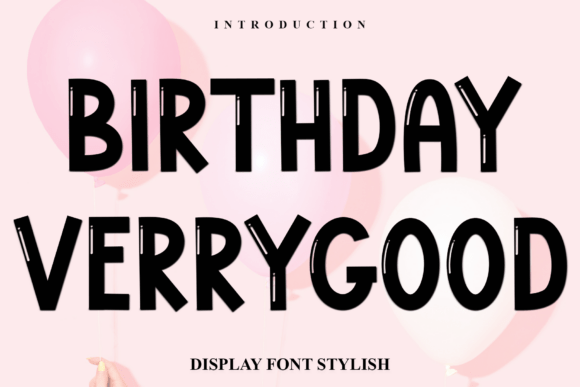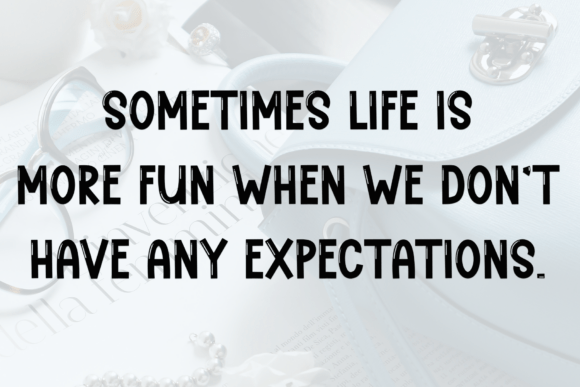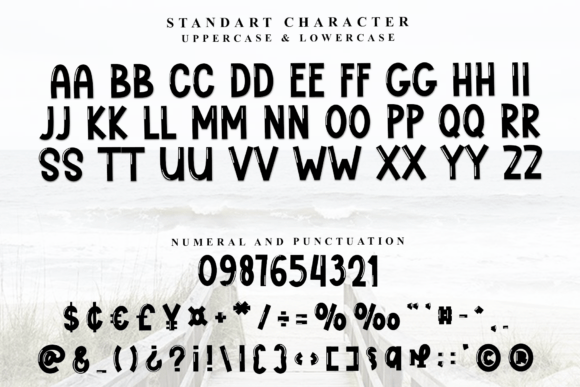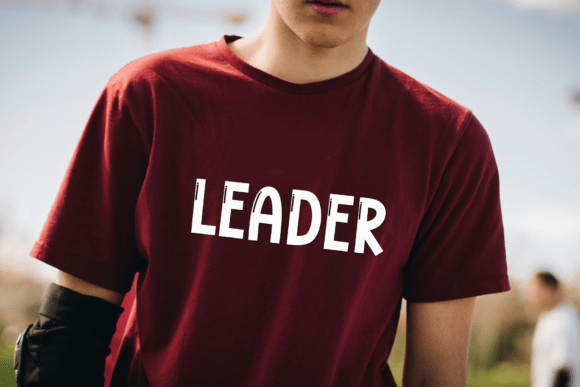
Birthday Verrygood Font
Birthday Verrygood is a sweet and friendly display font. Its natural and unique style makes it incredibly fitting to a large pool of designs. The only limit is your imagination!